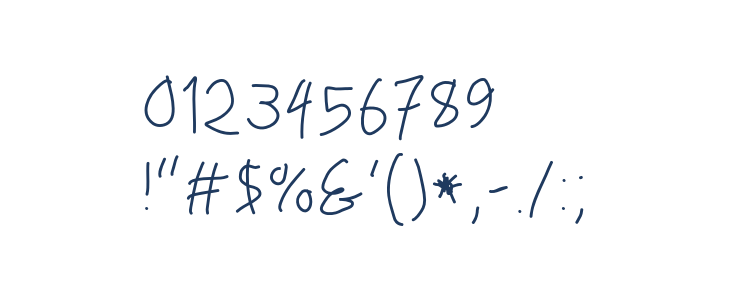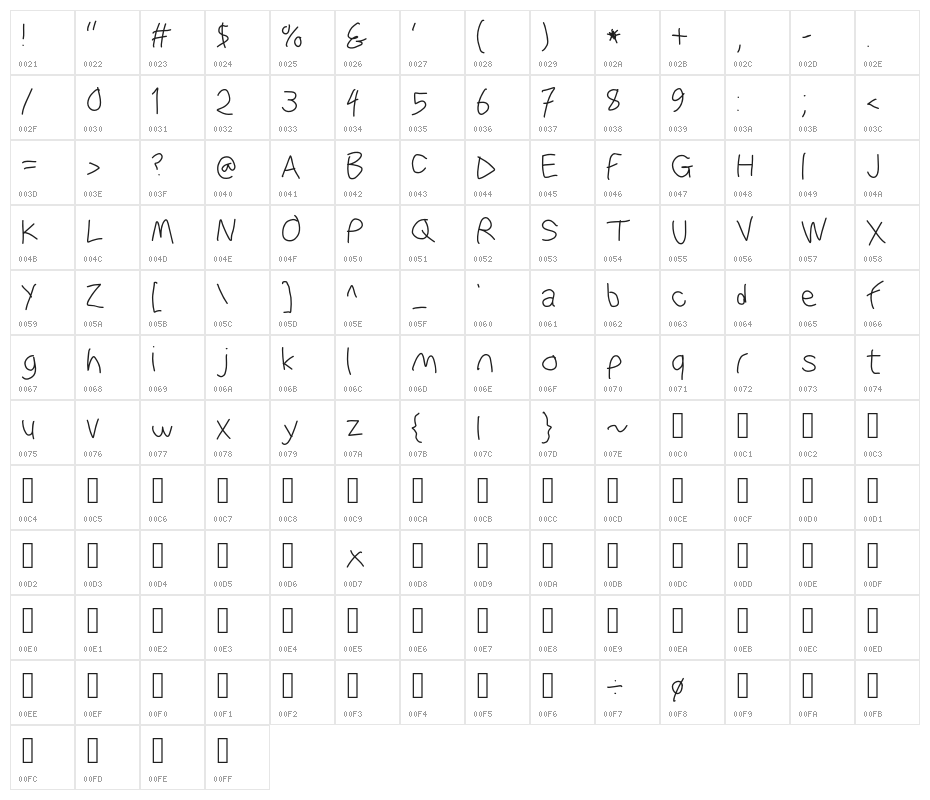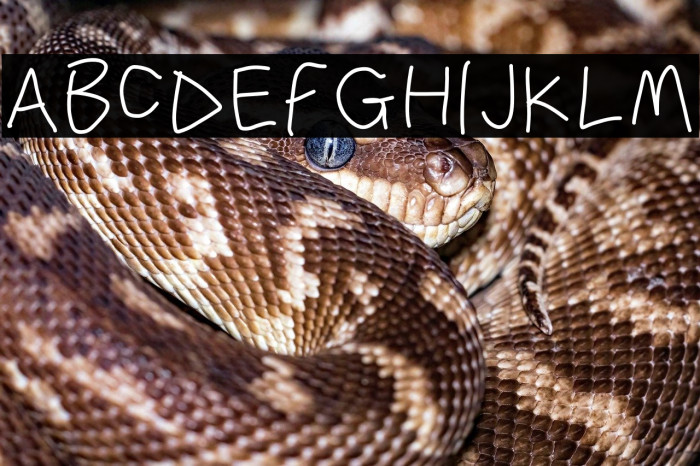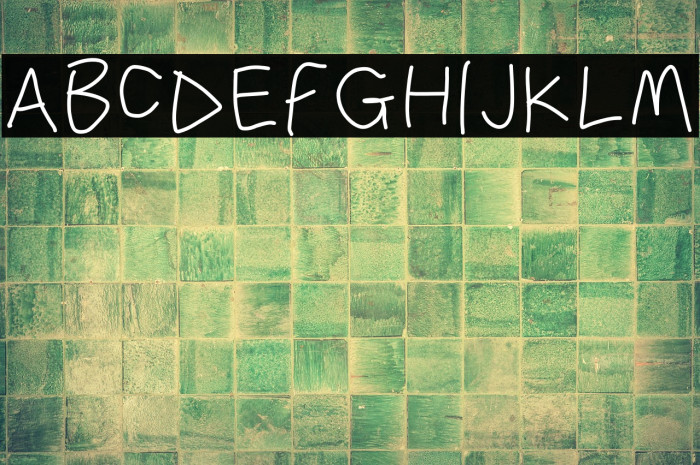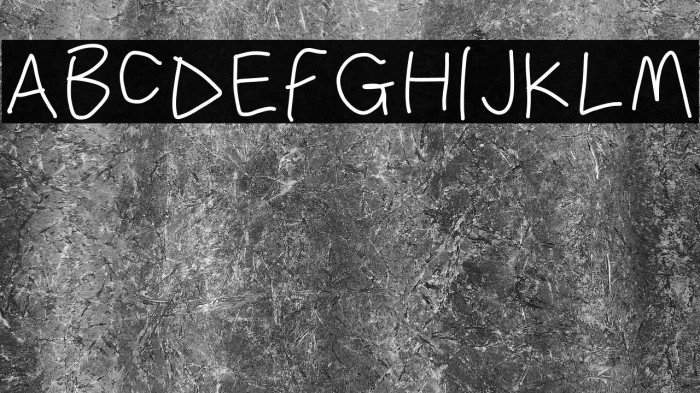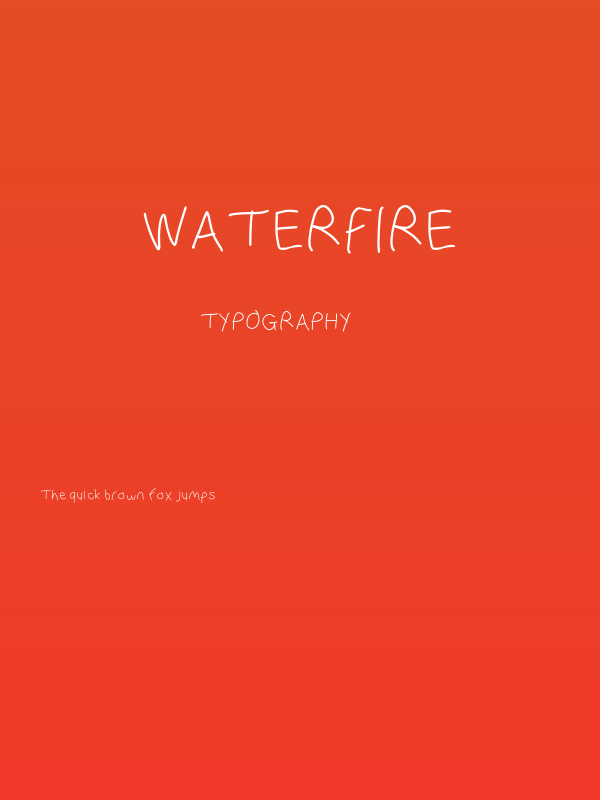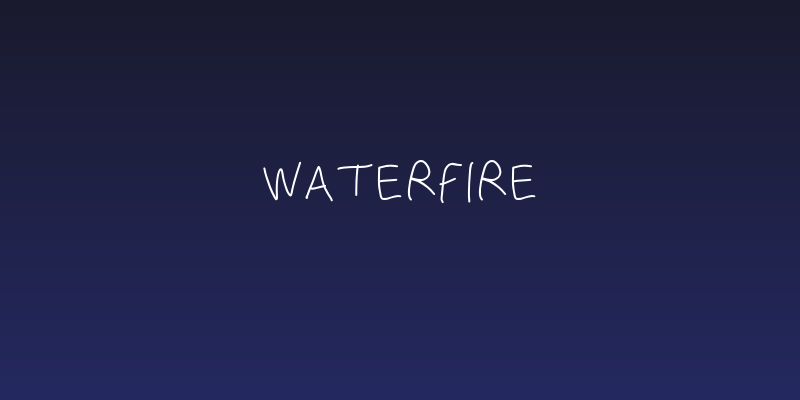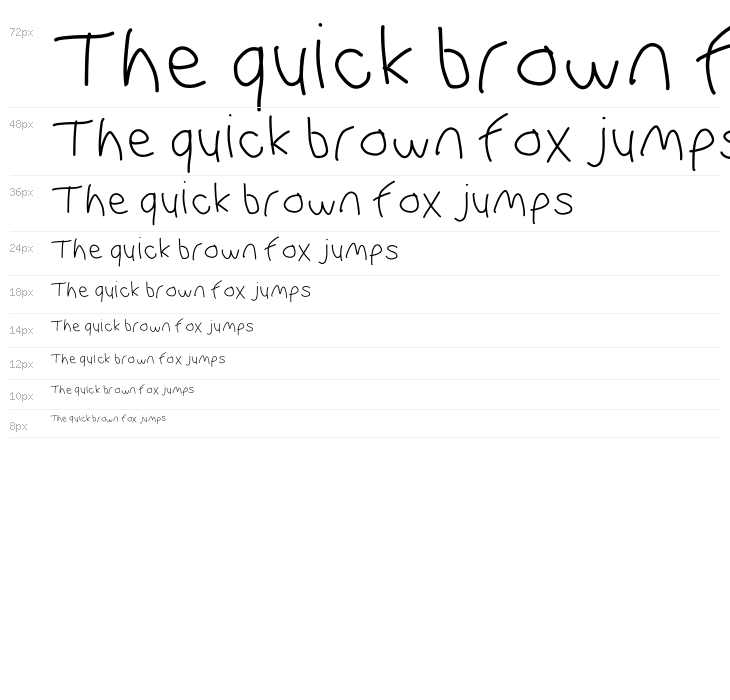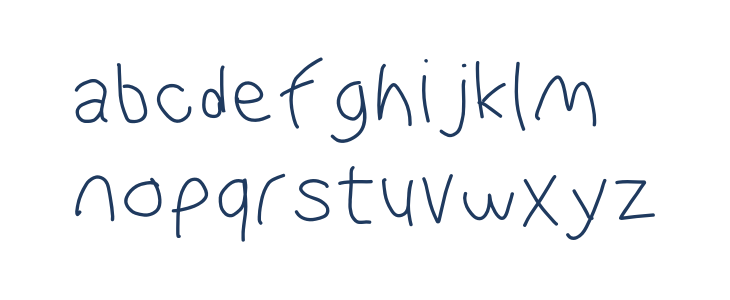
WaterFire Font
WaterFire Description
This font features a playful, handwritten style that exudes a casual and friendly vibe. The characters are slightly irregular, adding a personal touch that mimics natural handwriting. The strokes are consistent in width, giving it a uniform appearance despite its informal style. The uppercase and lowercase letters are distinct, with a slight tilt that enhances its dynamic look. Numbers and special characters maintain the same playful aesthetic, making it versatile for various uses. The overall appearance is approachable and informal, suitable for projects that require a personal or creative touch.